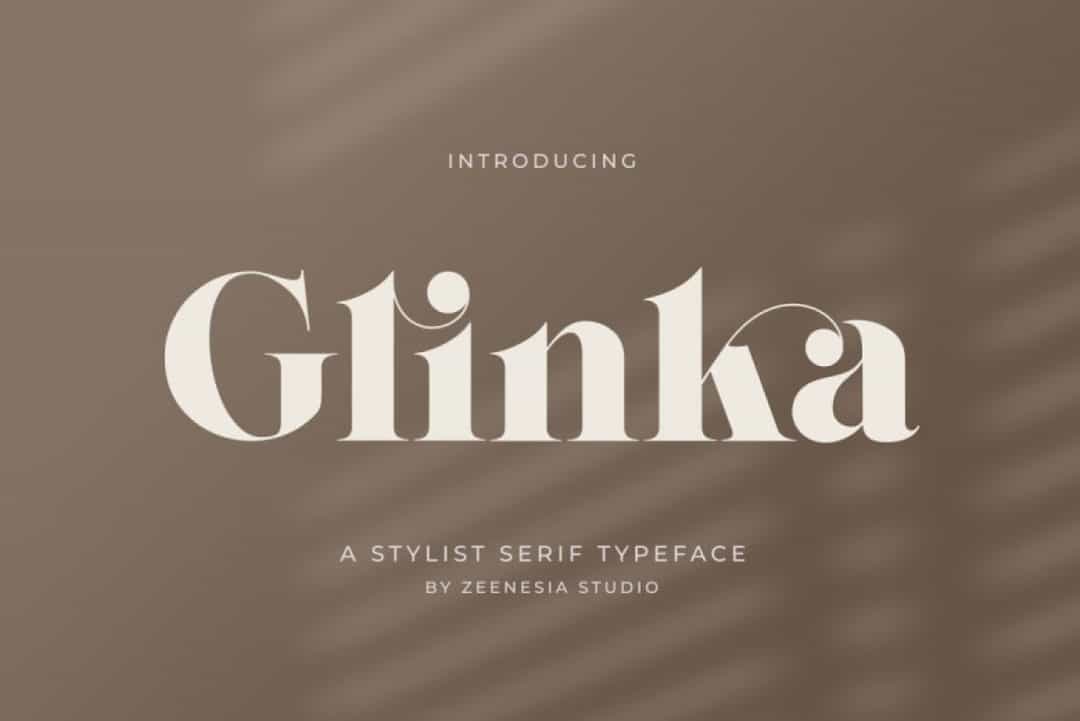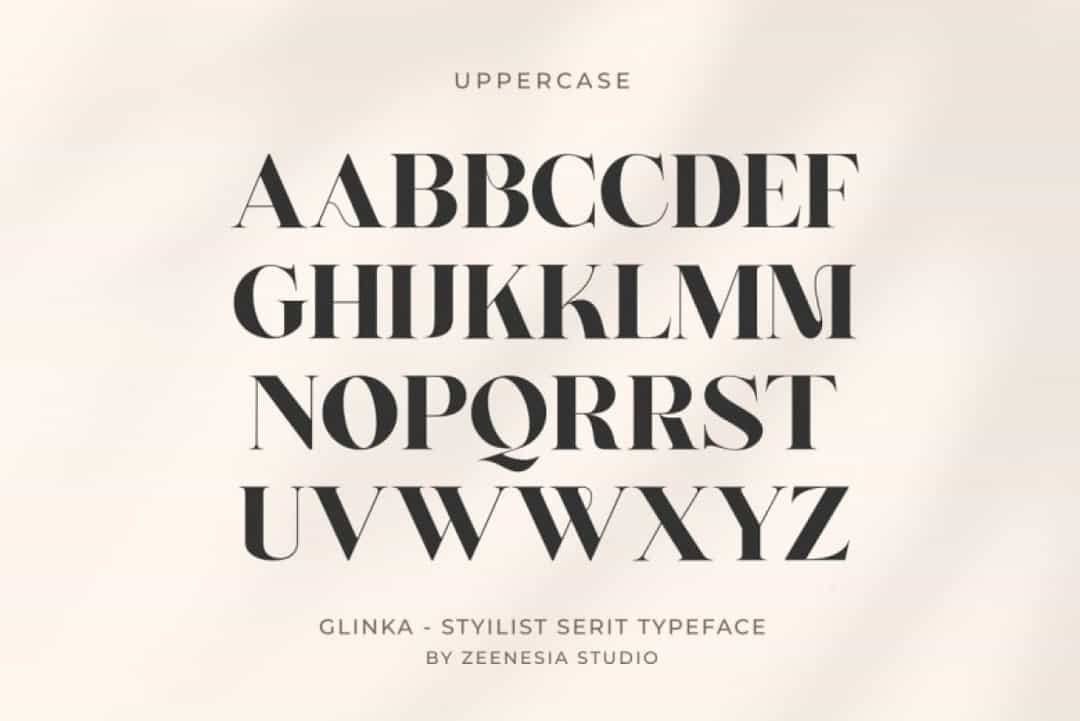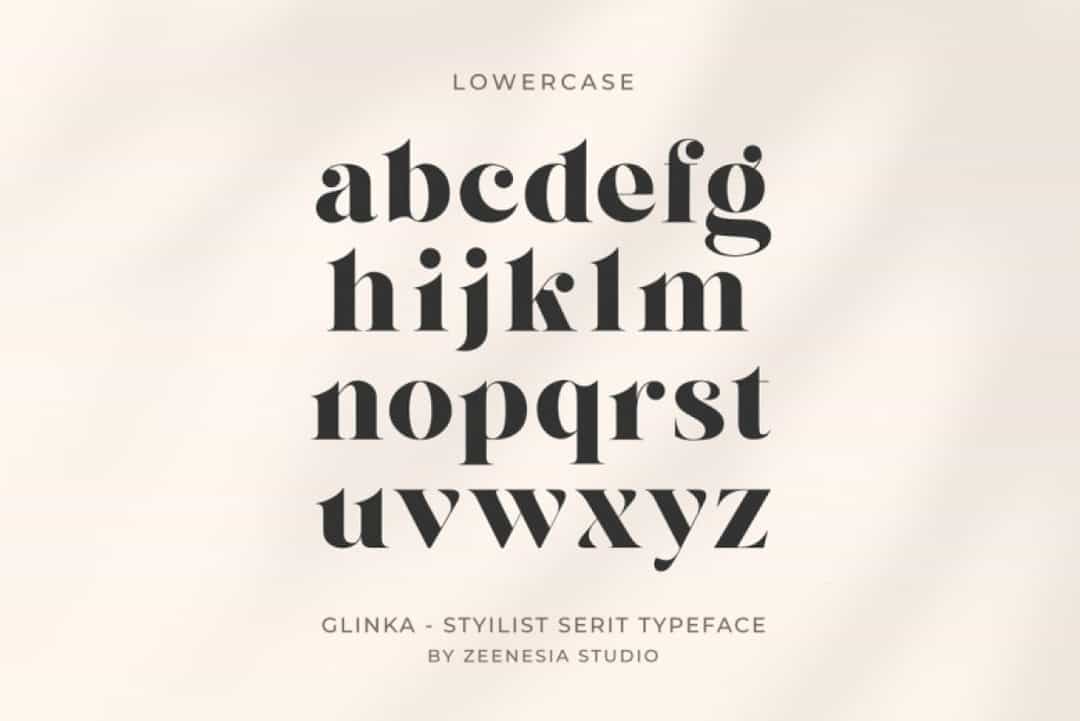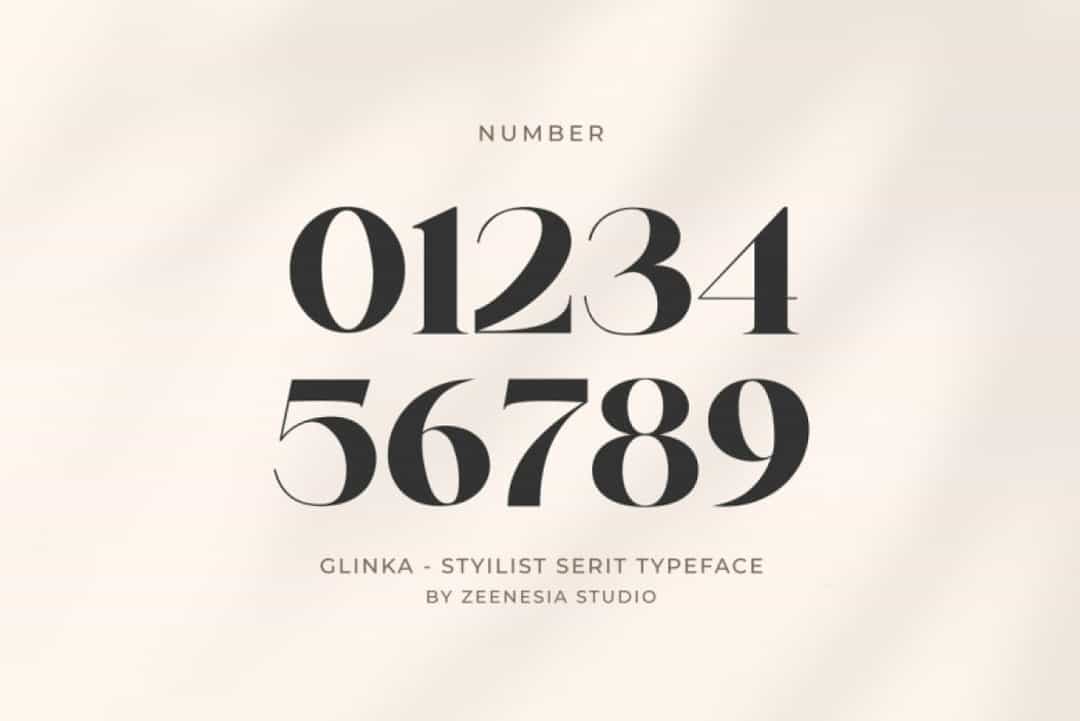
Glinka is an elegant and contemporary serif typeface, and I crafted various stylistic variations and natural ligatures to make it classy and elegant. Glinka can be used in branding, advertising packaging, logotypes, packaging headlines titles as well as editorial designs.